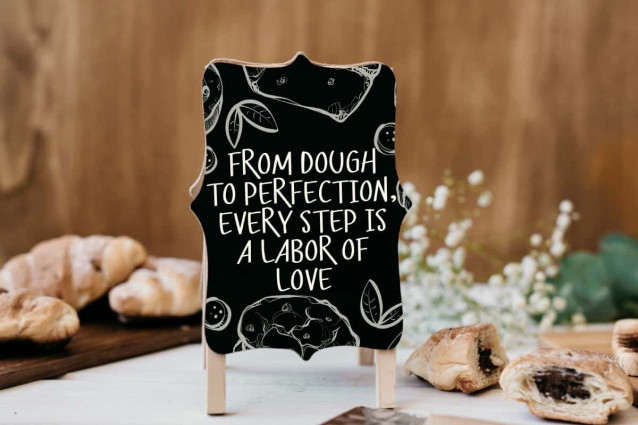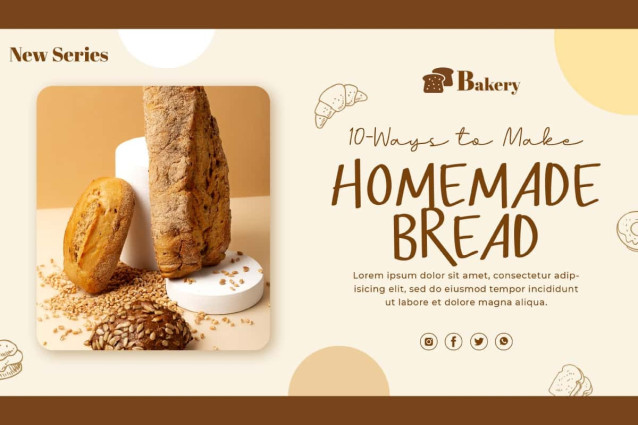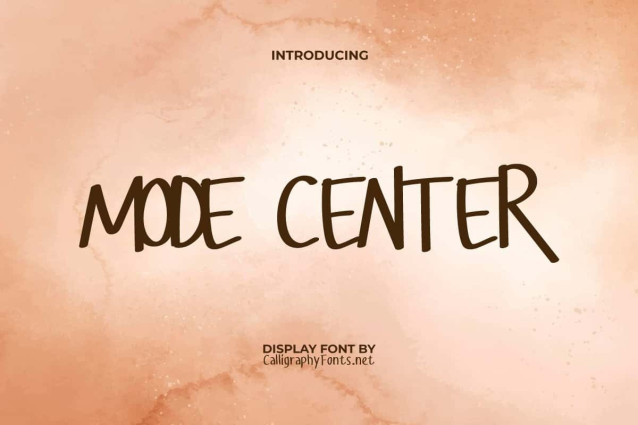
Mode Center Font
Mode Center Font is a casual and fun lettering look inspired by the natural style of markers. Unleash your creativity with this font as your go-to choice for adding a touch of personality to your written words. Perfect for blogs, brochure, covers, flyer, greeting cards, headers, headline, invitation, label tag, logos, menu, mockup, poster, printed materials, quotes, signage, social media design post, stationery, sticker, template, title, wall art, watermark, website, and more.
Mode Center Font has natural letter edges with realistic shapes. Perfect for anything that needs a handmade font that’s friendly and full of fun. The carefully crafted characters make it an ideal companion to ensure your ideas come across and are visually appealing. Useful for accessories and gift, advertising, bakery, cafes, film, graphic designer, handicraft, pastry chef, photography, publisher, restaurants, and many more.